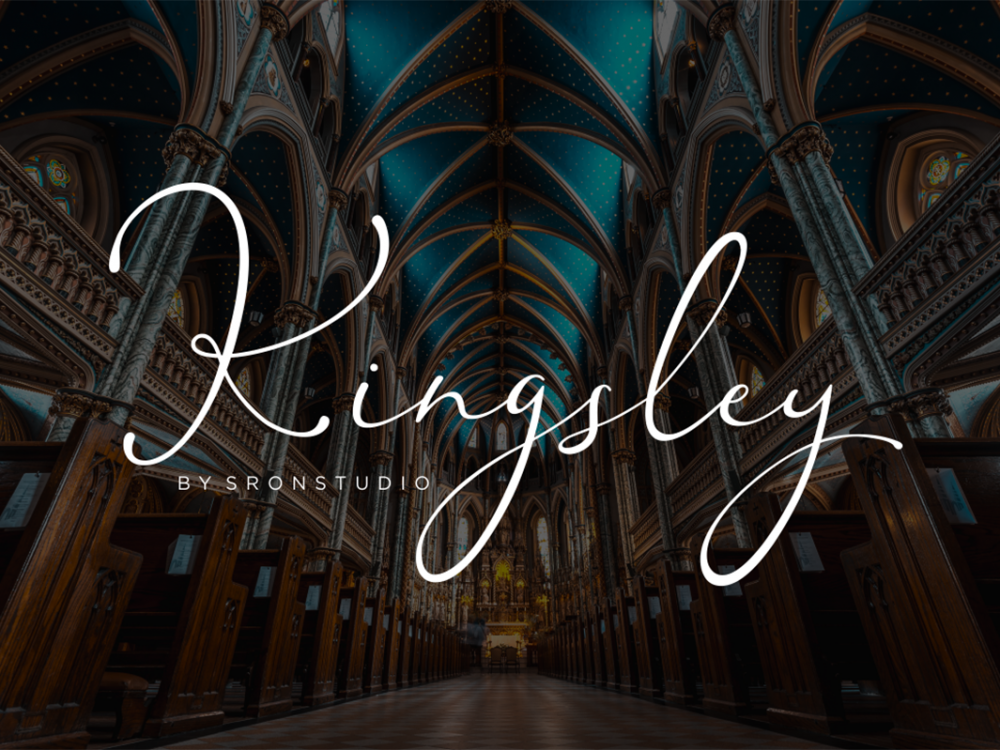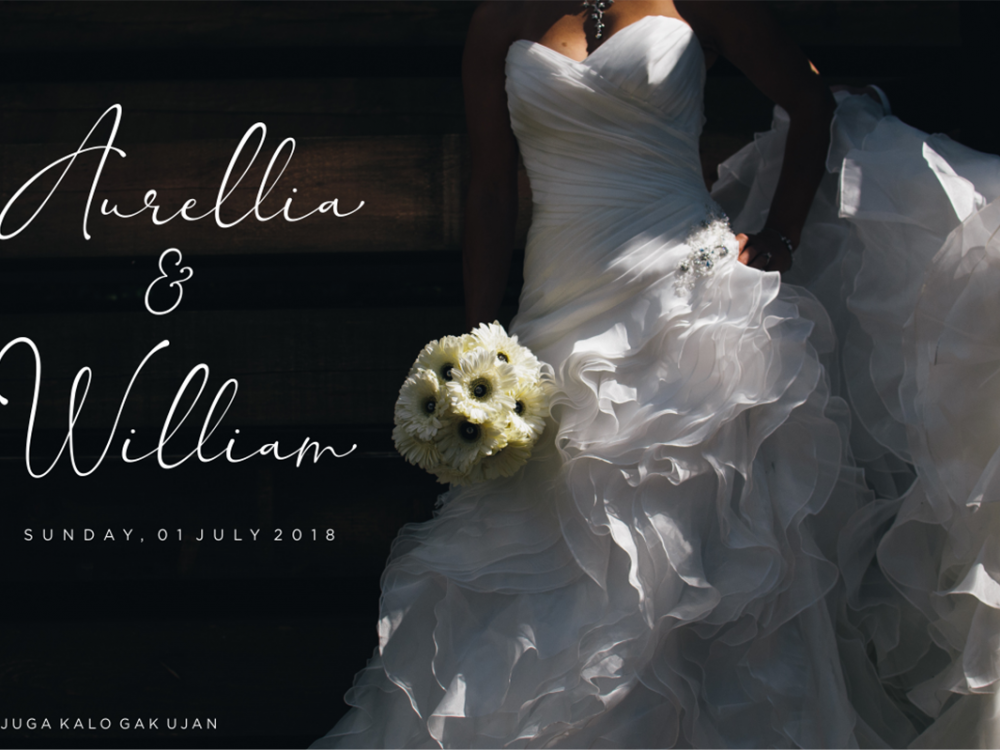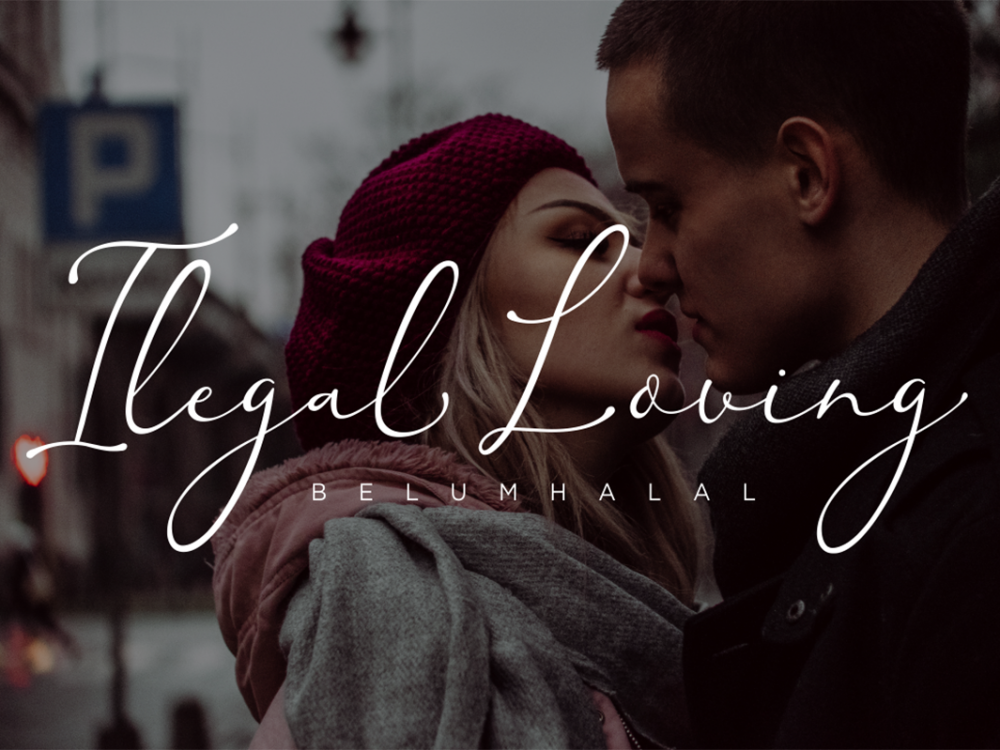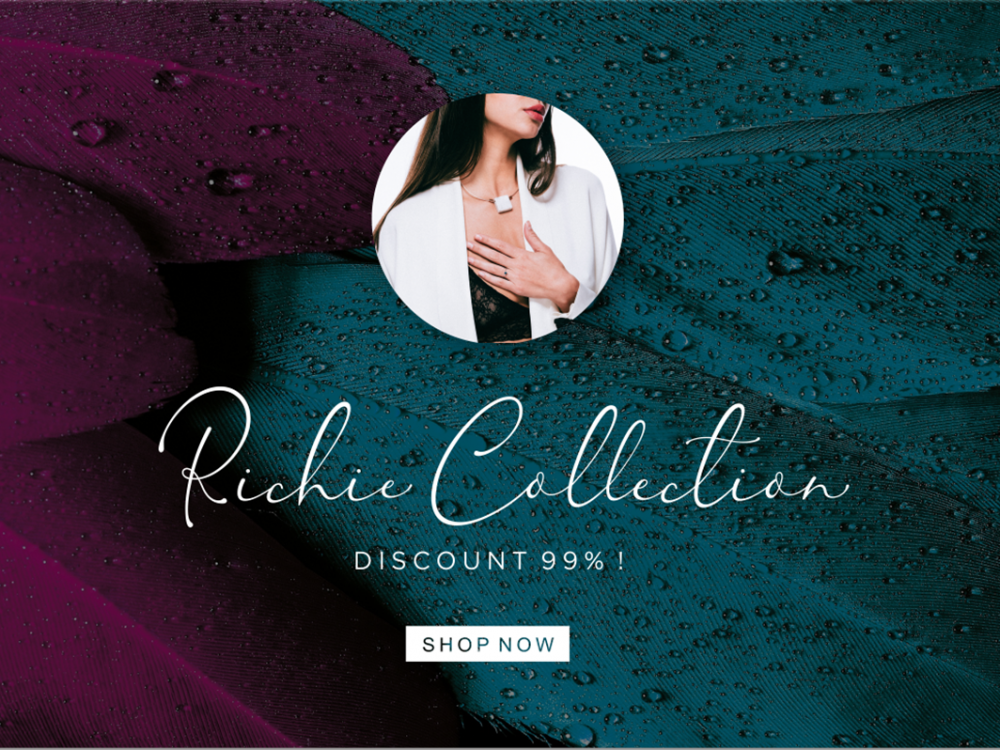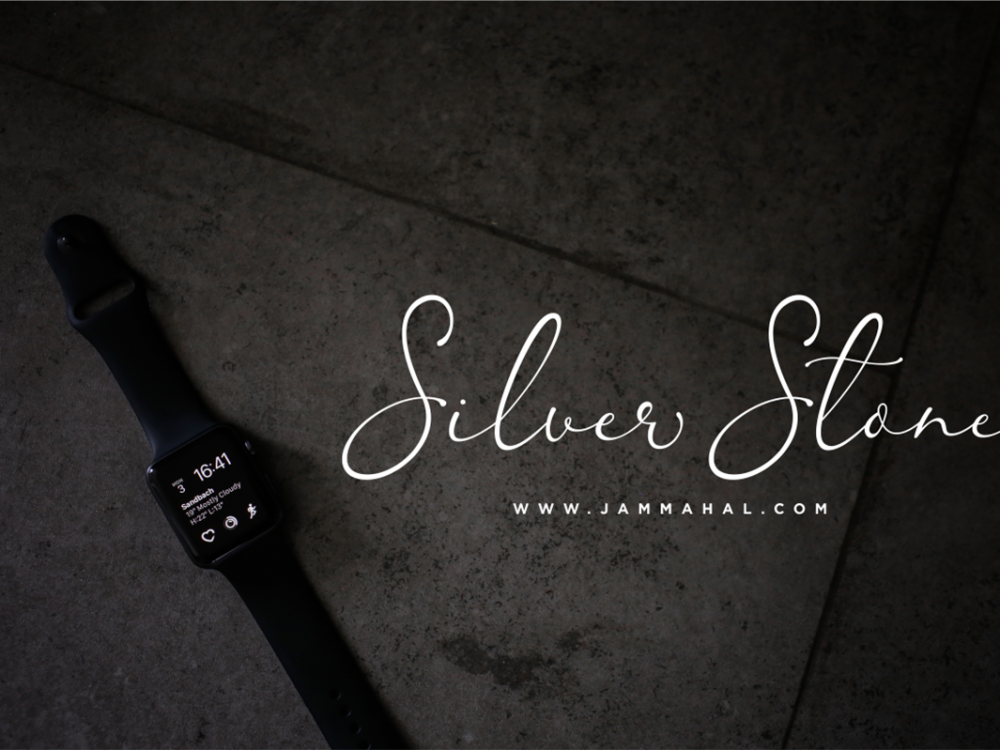
Kingsley Free Font
Kingsley Free Font is a new modern & fresh script with a stylish handwritten and script style. This font compares favorably with other fonts with a modern style and is very well suited for your various design projects that require a quality script font. You can use this font to create memorable romantic posters, wedding invitations, greeting cards, branding, flyers, t-shirt and pillow prints, and more. Improve the quality and increase the popularity of your design projects using this font. If you like it don’t forget to check out the full version.